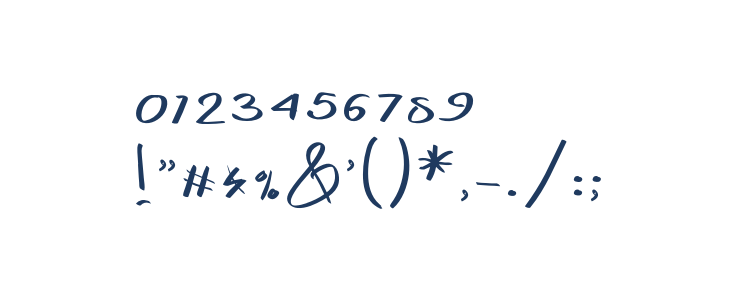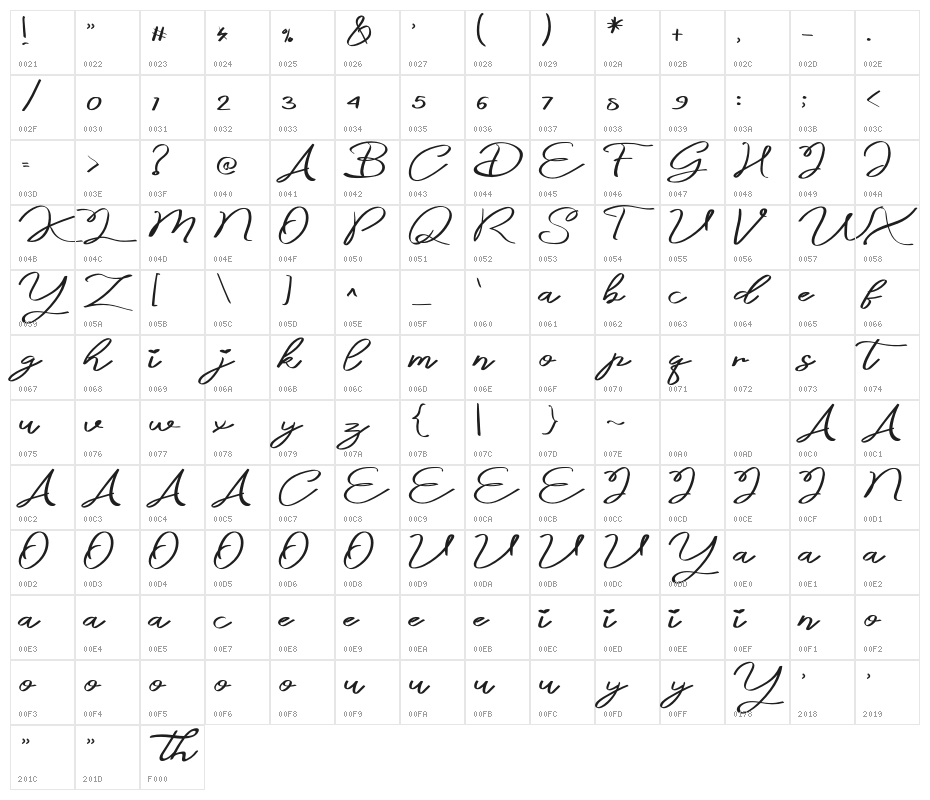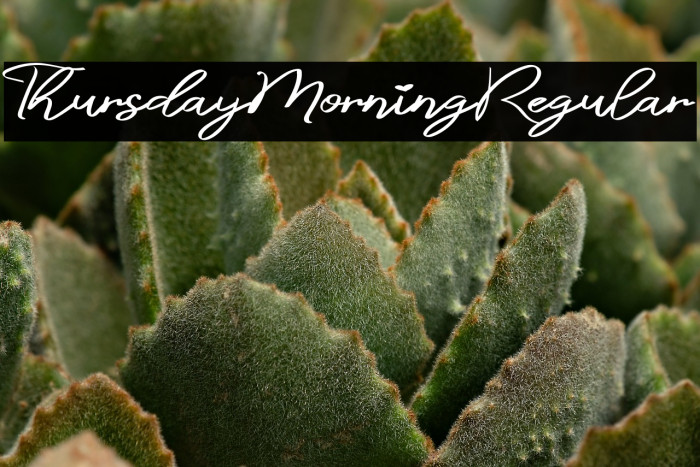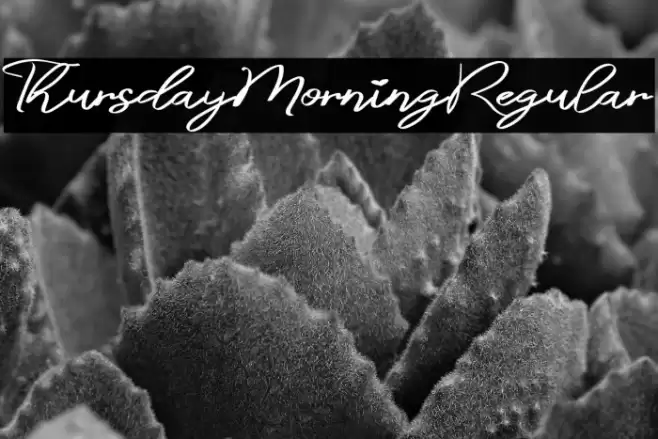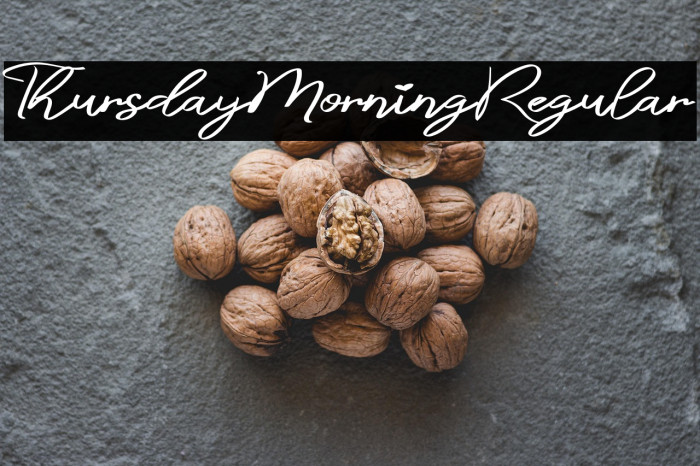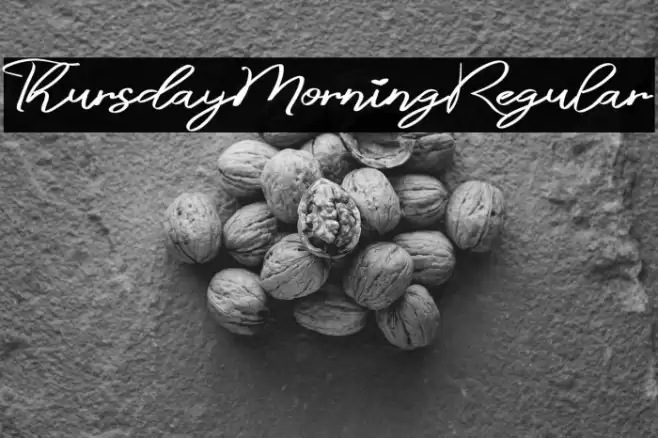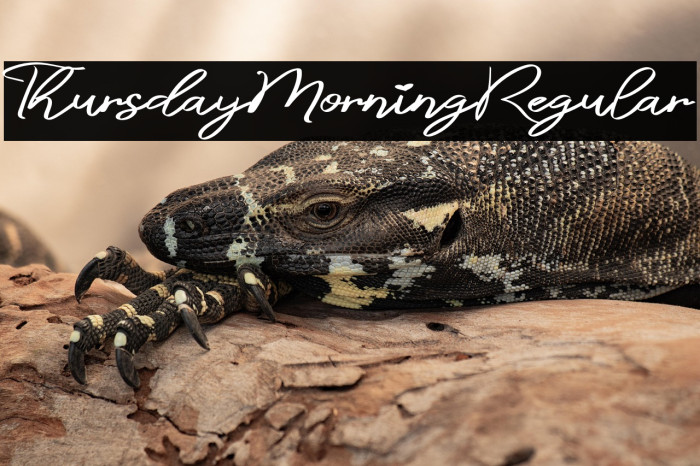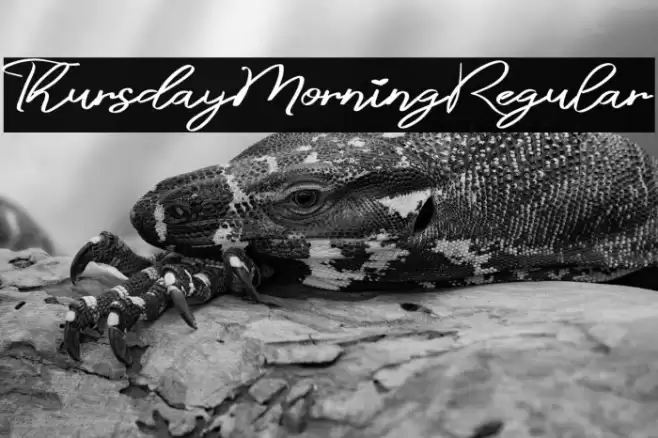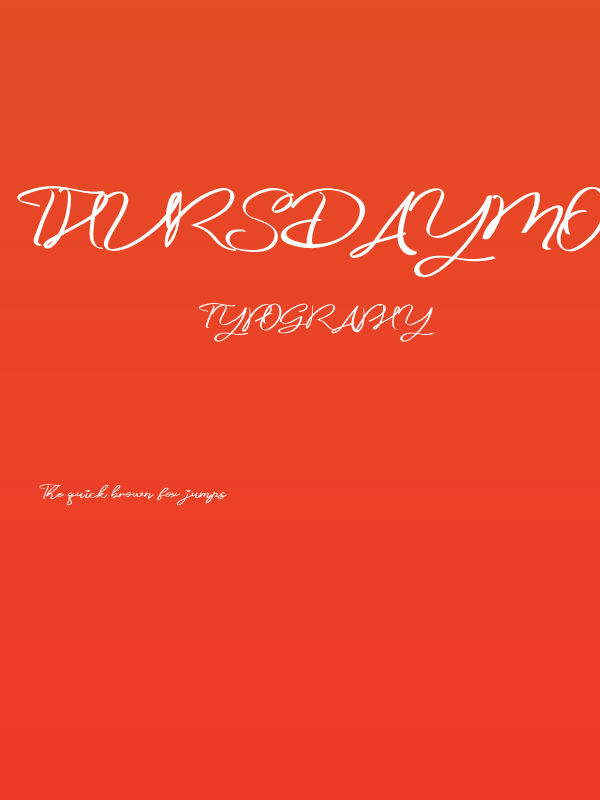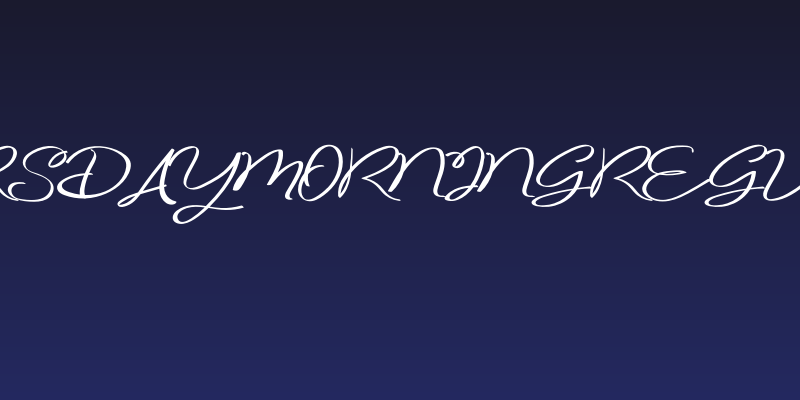
ThursdayMorningRegular Font
ThursdayMorningRegular Description
This font features a flowing, cursive style with elegant loops and swashes, giving it a sophisticated and artistic appearance. The uppercase letters are particularly ornate, with intricate connections between strokes, while the lowercase letters maintain a smooth, fluid form. The numbers and special characters complement the overall design, maintaining the same graceful curves. This font exudes a sense of creativity and elegance, making it suitable for projects that require a touch of refinement and personality.
| Overall Style | Elegant, Artistic |
| Use Case | Logos, Invitations, Artistic designs |
| Proposed Projects | Ideal for wedding invitations, greeting cards, branding, and artistic projects. |